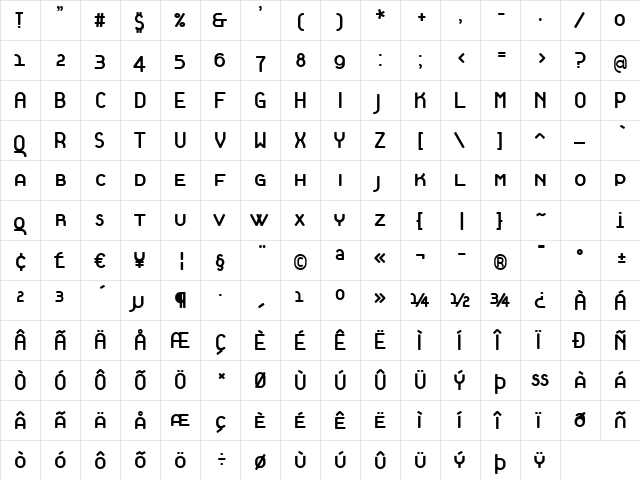
TantalusBoldSmallCaps Regular Font Preview
TantalusBoldSmallCaps Regular
TantalusBoldSmallCaps Regular Font Details
Design Context for TantalusBoldSmallCaps Typeface
TantalusBoldSmallCaps takes a measured approach to typography — its balanced proportions and neutral character make it a reliable workhorse for both digital and print work. Its bold stroke weight gives it real presence on the page.